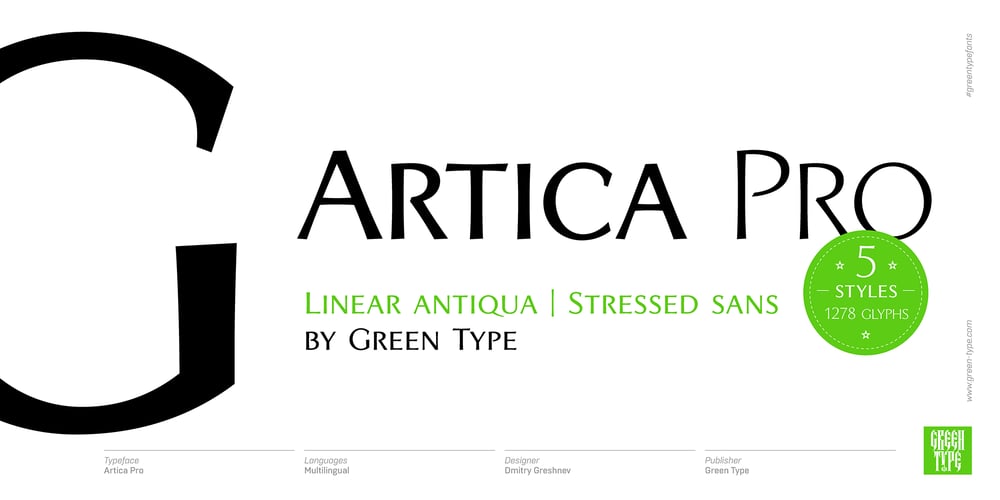
Artica Pro Font Family was designed by Dmitry Greshnev and published by Green Type. Artica Pro contains 5 styles and family package options. Artica is an elegant sans serif typeface, offered in five weights. It was inspired by classic Roman letterforms. Artica Pro supports Latin, Cyrillic and modern Greek scripts, and includes swash initial & final forms, stylistic alternates and ligatures.